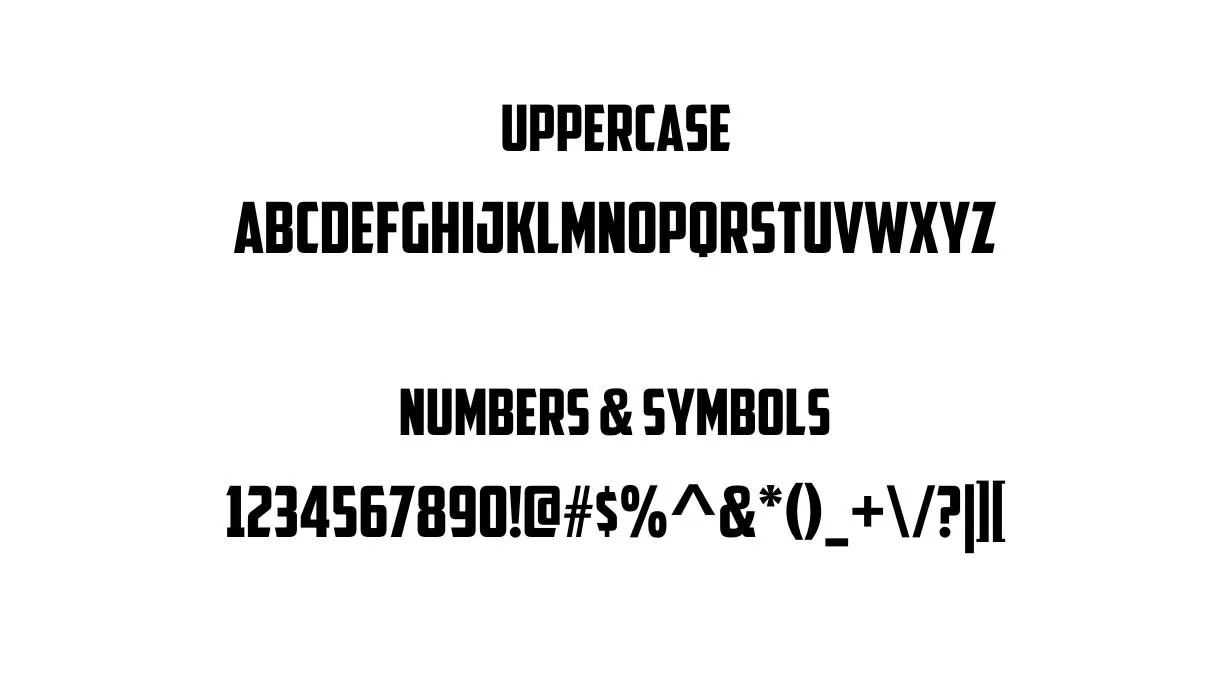
The American Font proudly carries a patriotic spirit, reminiscent of classic American signage. Ideal for projects that celebrate the nation’s colors, its characters add a touch of Americana.
| Name | American Font |
| Designer | Morris Fuller Benton |